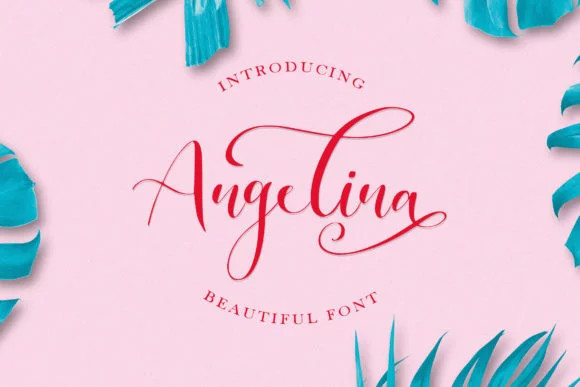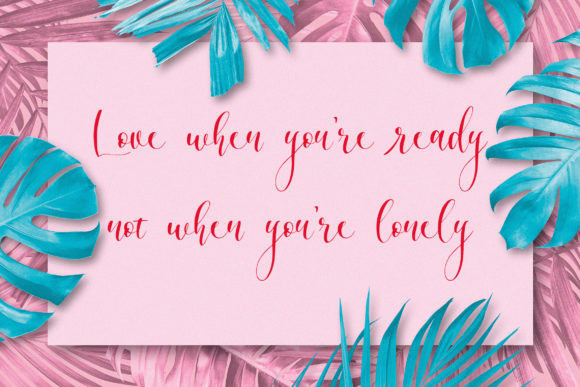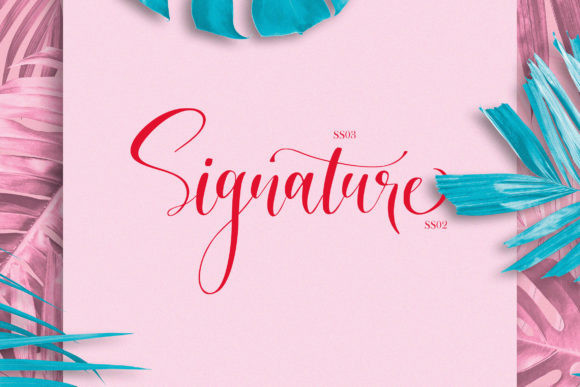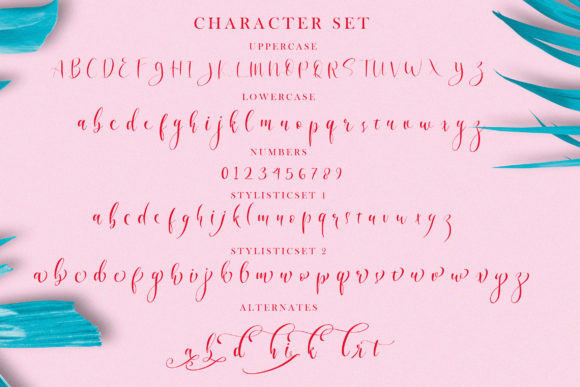
Angelina Calligraphy Font
This is a stylish calligraphy font, has something cool to deliver your words into a cute and sweet feels. Introducing Angelina Font. It’s designed and shared by Juncreative. It’s a particularly sweet script that features incredible swashes, making it a one-of-a-kind crafting font! It’s the perfect fit for all feminine logo projects, printed quotes, lovely wedding invitation cards, social media headers, product packaging and a lot more!